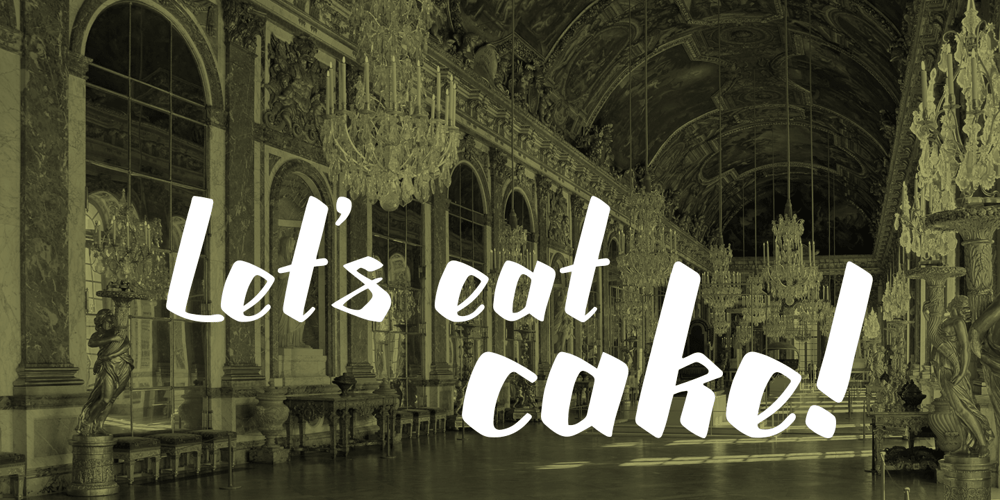
Marie Jeanne
Marie Jeanne font
Marie Jeanne Font Family was designed by Kent Swecker and published by A New Machine. Marie Jeanne contains 1 styles and family package options. Marie Jeanne is a handmade font created with a casual feel that works well at larger sizes in headers or titles. Also works great in branding applications.